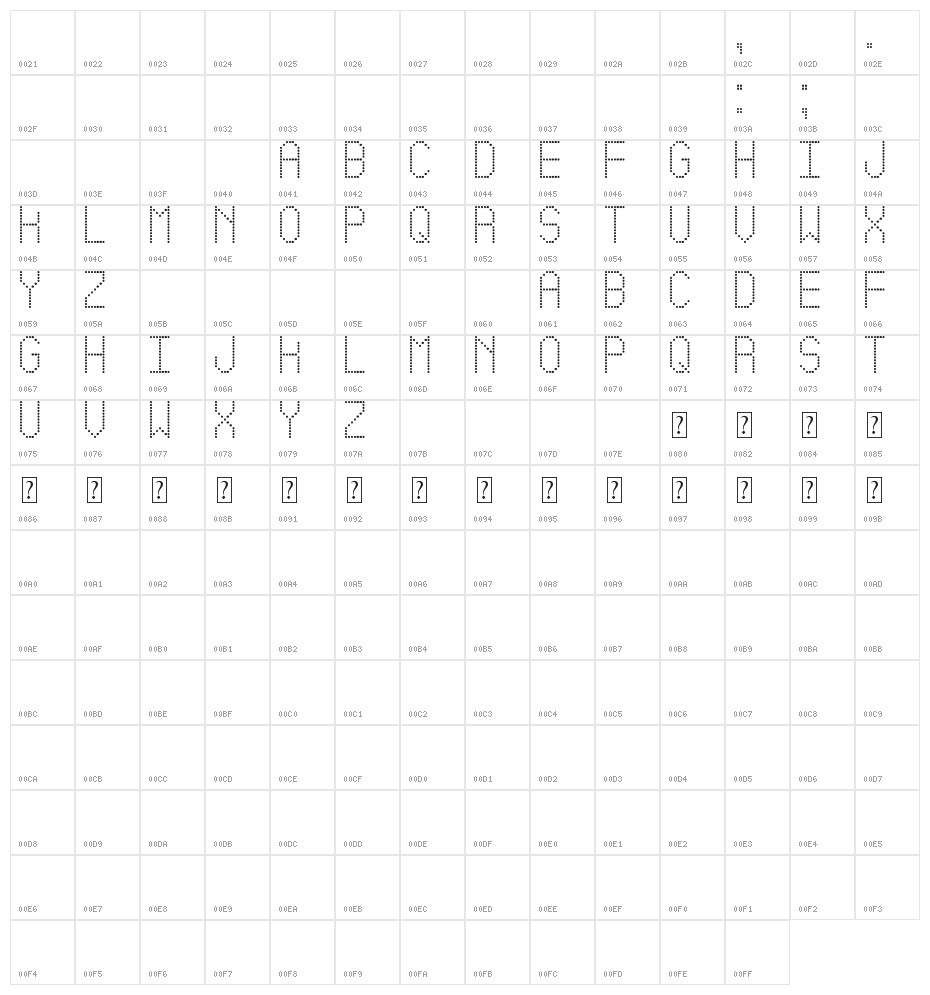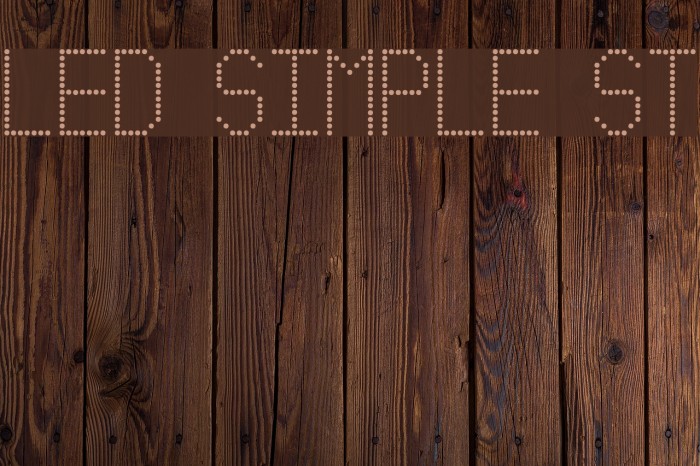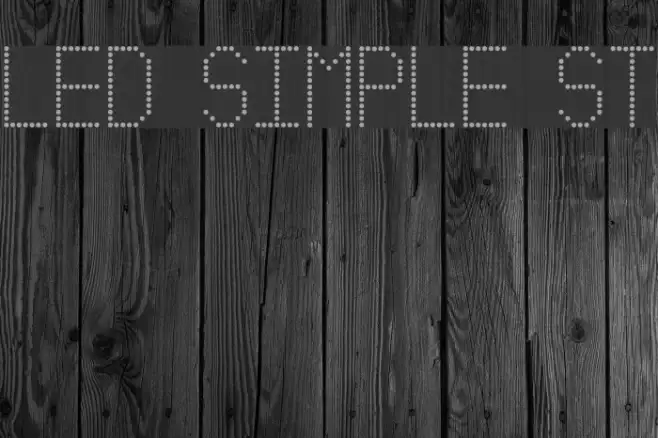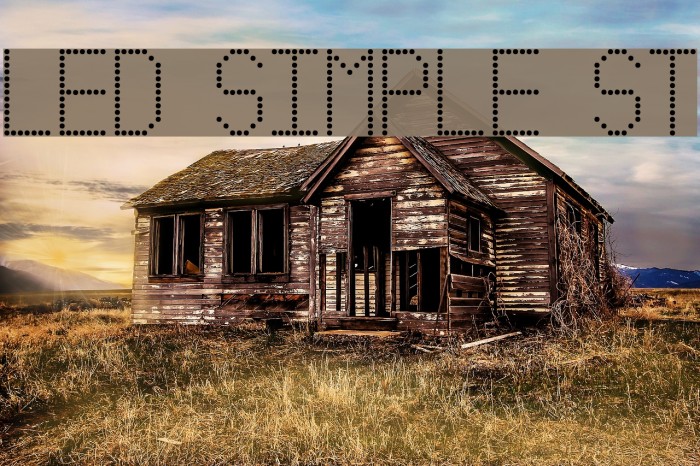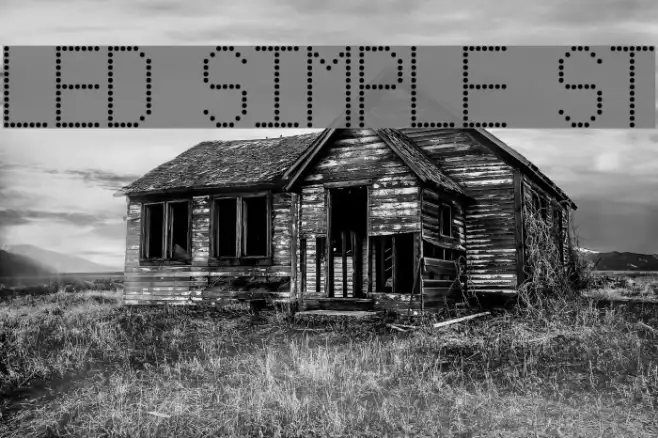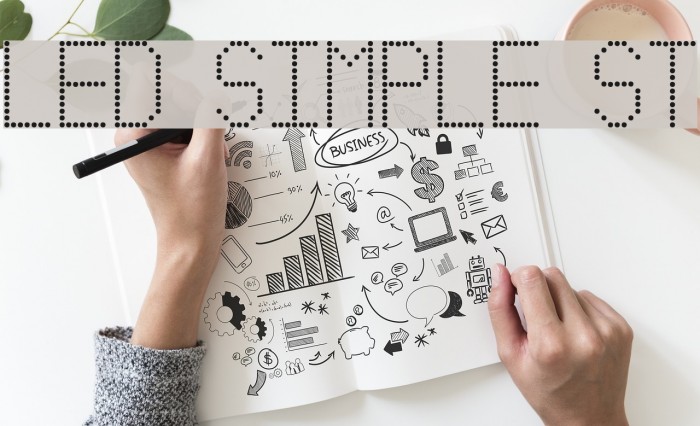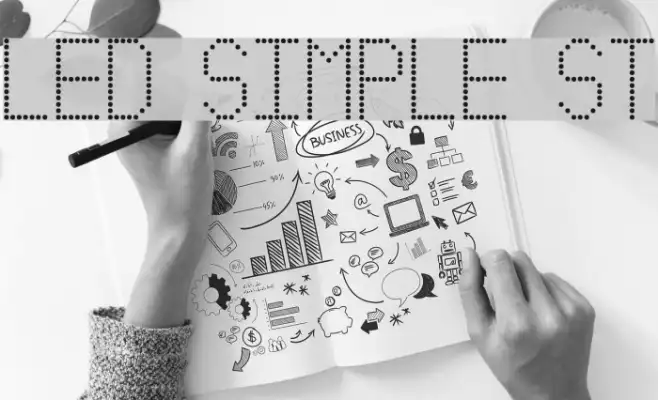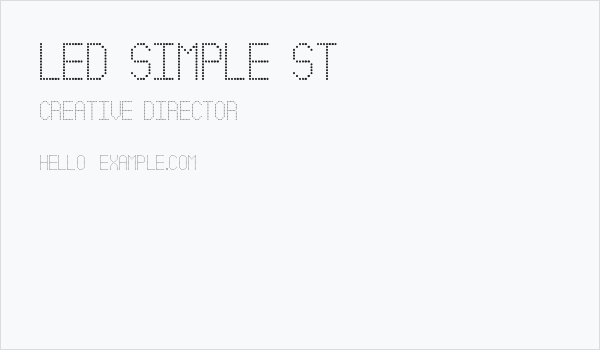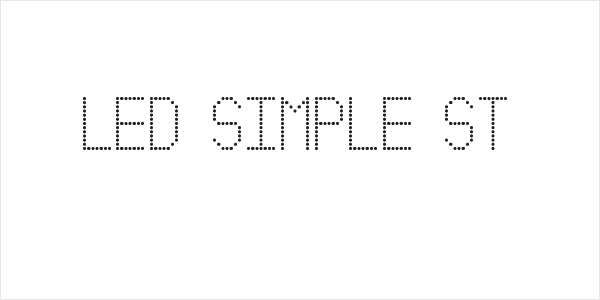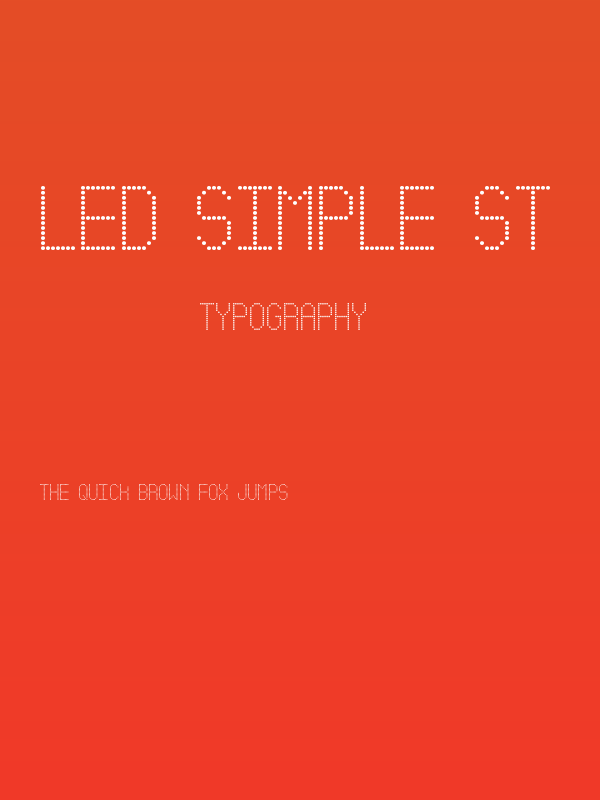
Led Simple St Font
Led Simple St Description
This font features a unique dot matrix style, reminiscent of LED displays. Each character is constructed from a grid of evenly spaced dots, creating a digital and modern appearance. The uppercase and lowercase letters maintain a consistent height, with numerals and special characters following the same dot pattern. This design is highly legible and conveys a sense of technology and innovation, making it suitable for digital-themed projects. The uniformity of the dots gives it a clean and structured look, while the spacing between the dots ensures clarity and readability.
Proposed ProjectsIdeal for digital displays, tech-themed branding, electronic device interfaces, and futuristic design projects.